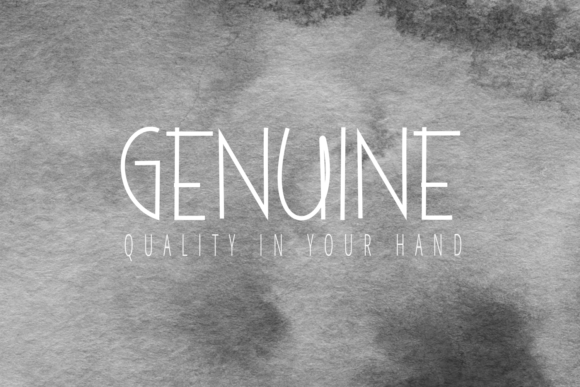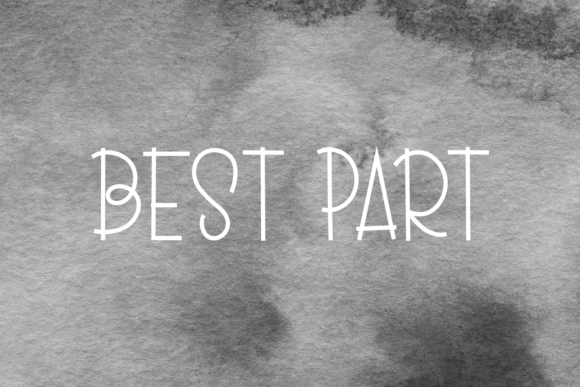
About Genuine Font
Genuine is a thin lettered, wide spaced and informal handwritten font. Simple but with a strong visual effect, this font will instantly make your creation more appealing than any others.